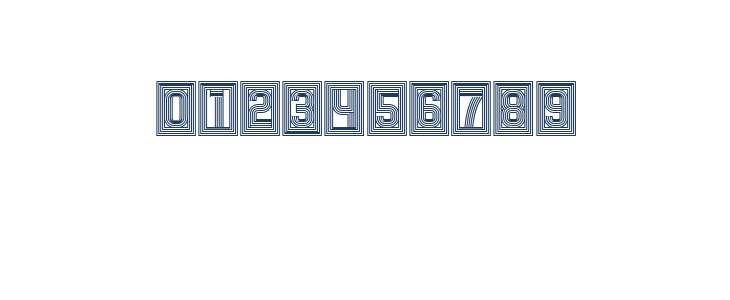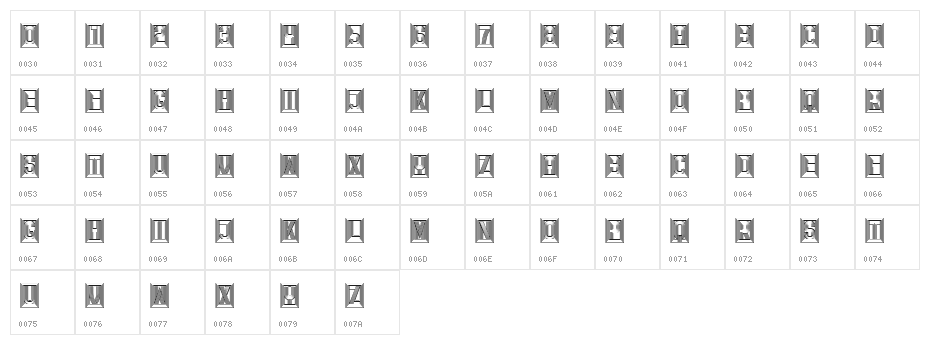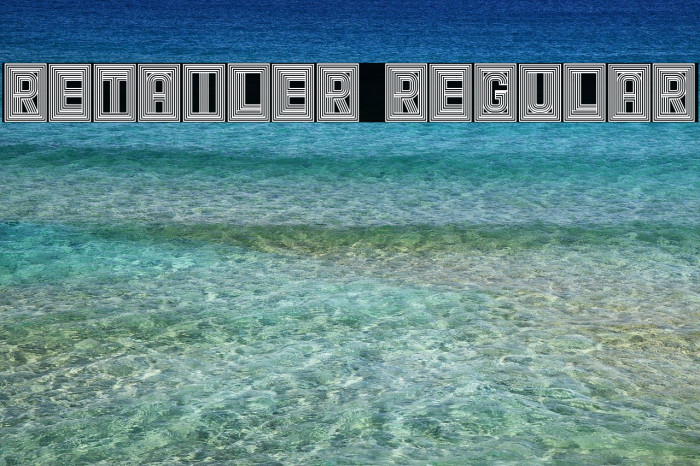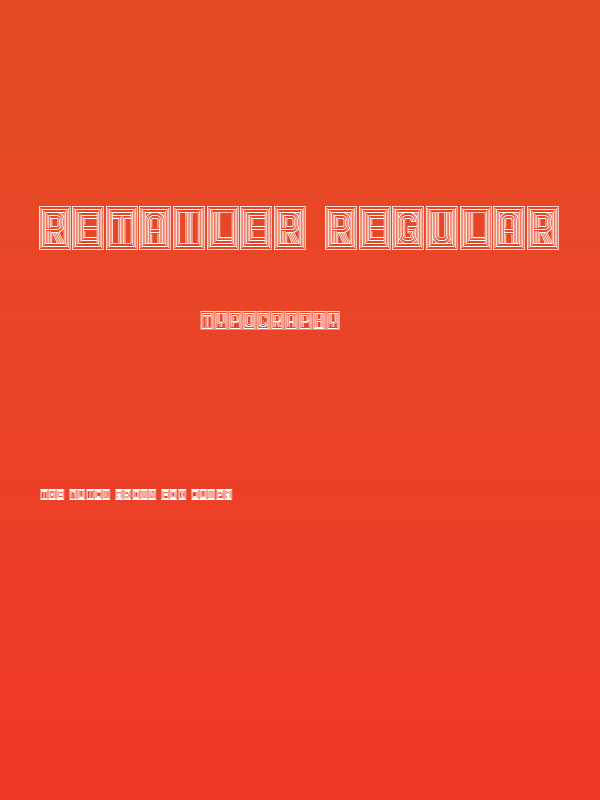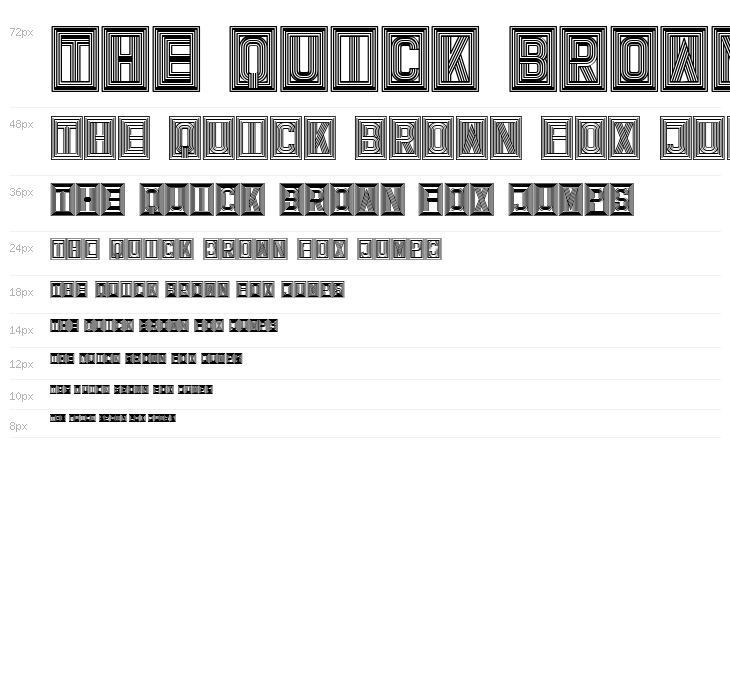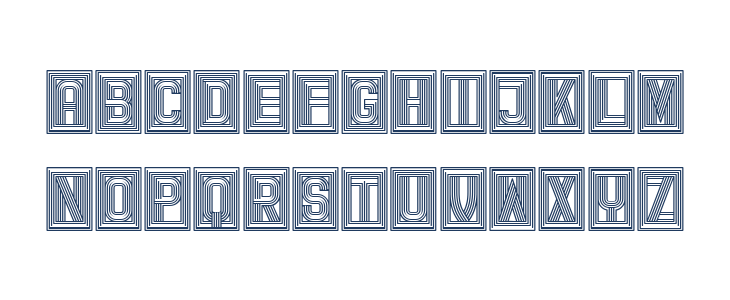
Retailer Regular Font
Retailer Regular Description
This font features a unique, decorative style with a layered, geometric design. Each character is enclosed within a square frame, creating a striking visual effect. The lines within each letter form intricate patterns, giving the font a complex and artistic appearance. The uppercase and lowercase letters, as well as numbers and special characters, maintain this consistent style, making it ideal for projects that require a bold and eye-catching display. The font's structured and repetitive design lends itself well to modern and creative applications.
| Proposed Projects | Ideal for posters, album covers, branding, and any project needing a bold, artistic touch. |